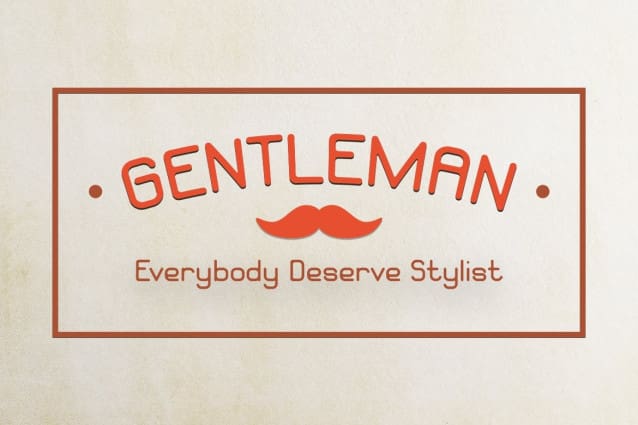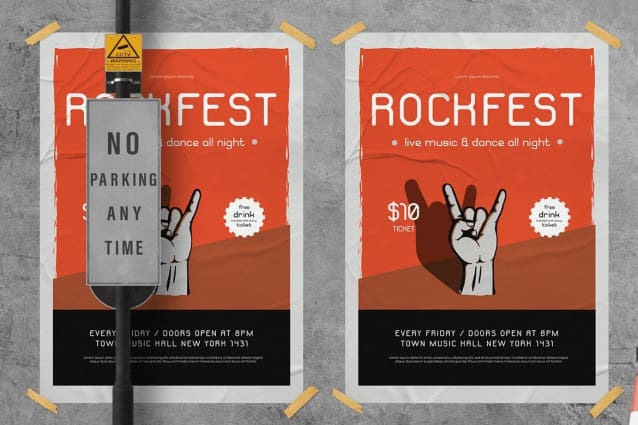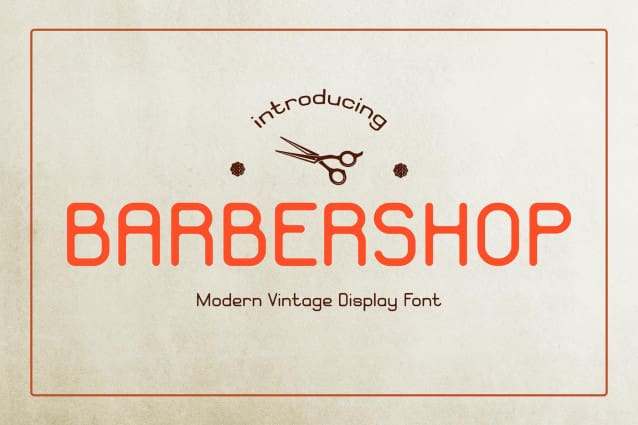
Barbershop Font
Barbershop Font is a vintage retro font that exudes the classic charm of old-fashioned barbershops. With its decorative elements and retro style, this font is perfect for creating stunning logotypes, branding designs and logos that capture the essence of vintage aesthetics.
Bring your digital lettering art to life with the uniqueness of a barbershop and let it add a touch of nostalgia to your branding designs. Its versatility extends to posters, magazines, signs and advertising designs, where it effortlessly evokes a sense of heritage and authenticity.
Transport your creations to a bygone era with Barbershop Font. Whether you’re working on a retro-themed project or simply looking to give your design some vintage charm, this font is a must-have in your creative toolbox. Take advantage of the timeless appeal of hair salons and give your designs an instant classic touch